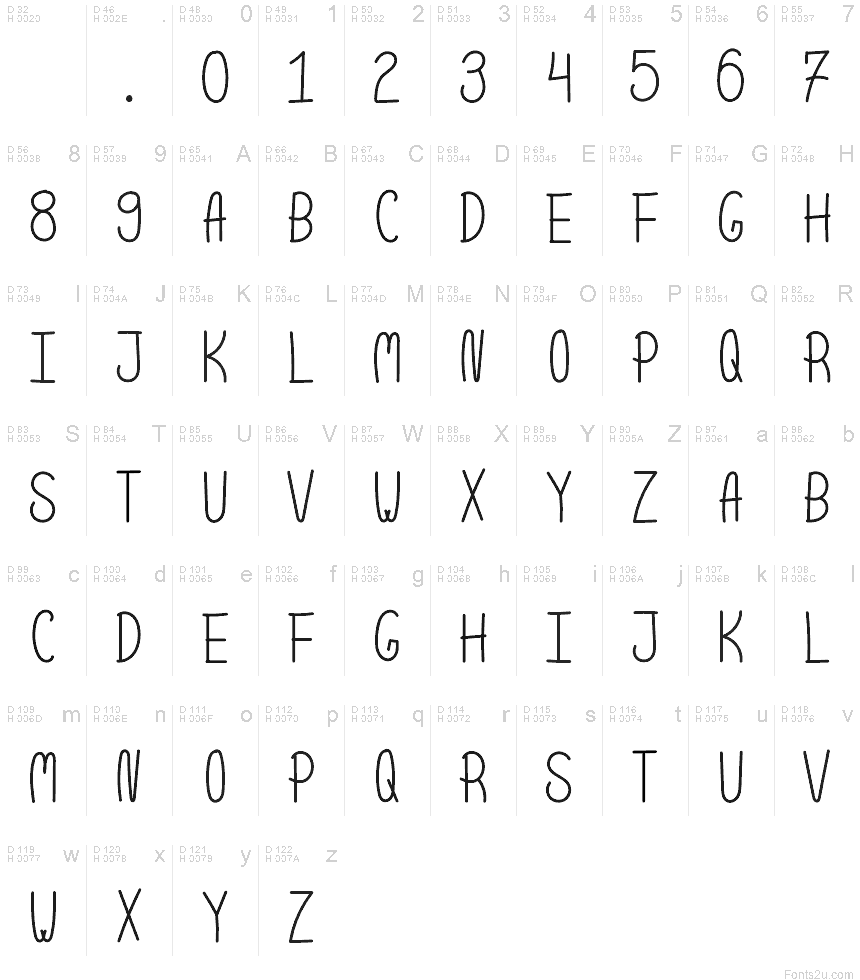
Scoop Normal
Scoop is one of the special food font that you will be going to use for almost any kind of project. It's 100% hand drawn and you can easily create tons of quotes with it. This is a cute font that can be used for invitation, celebration or even for a personal diary.
Saqib Ahmad